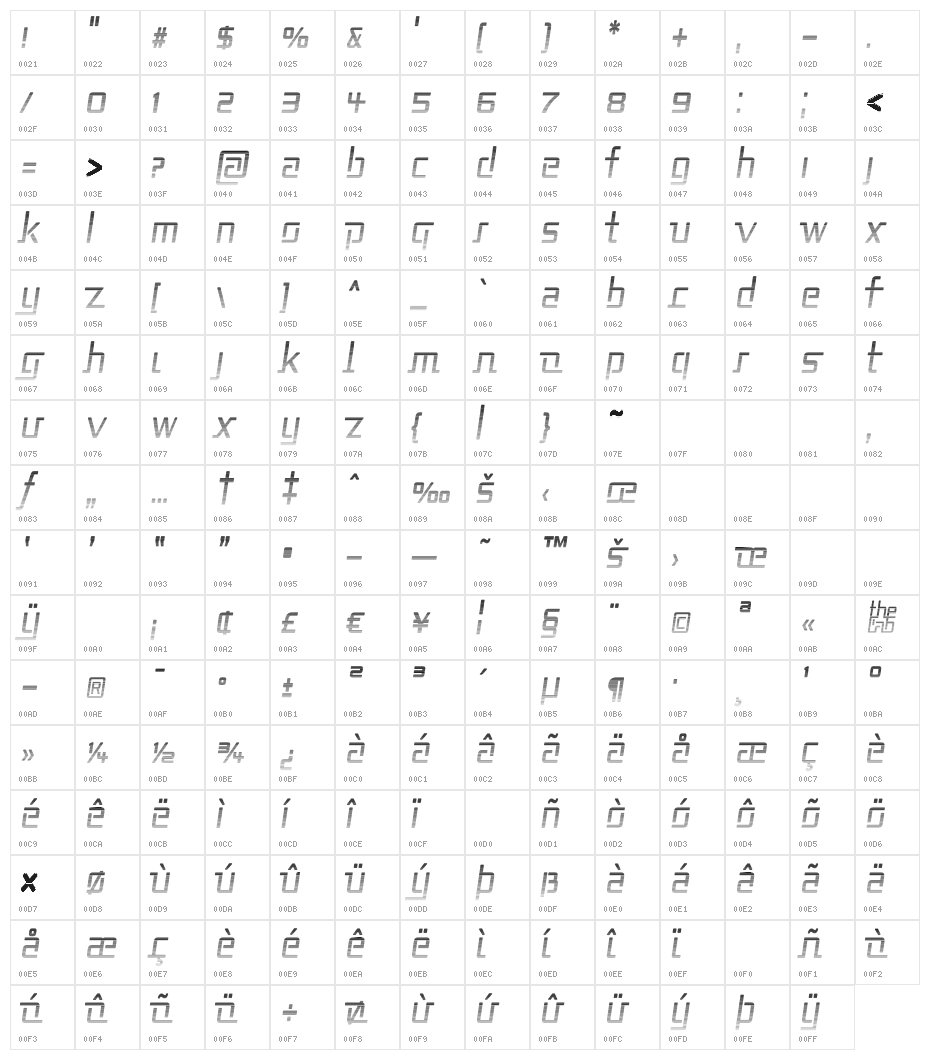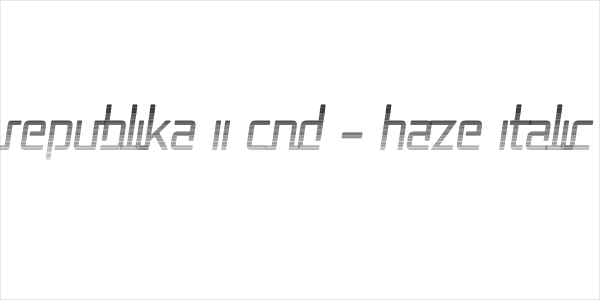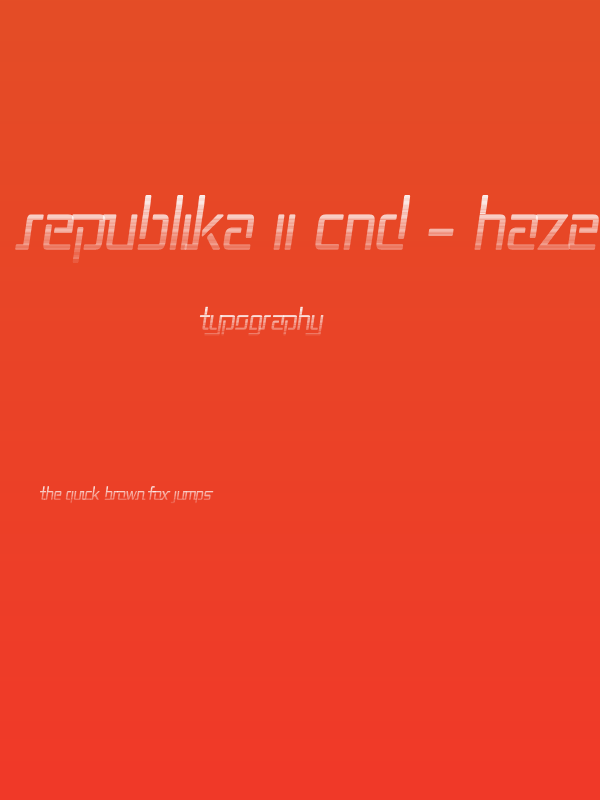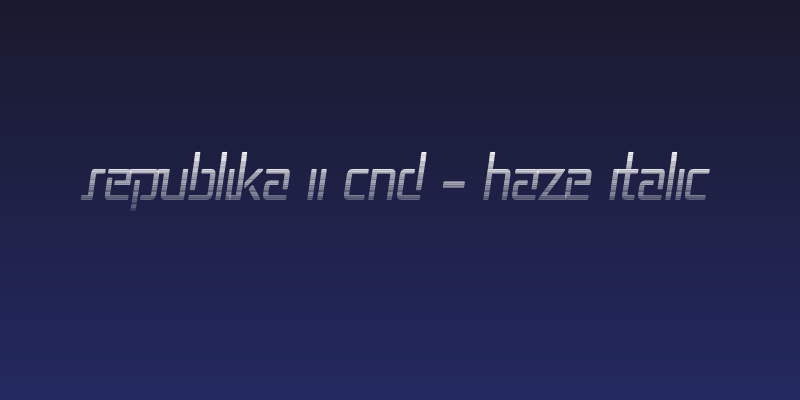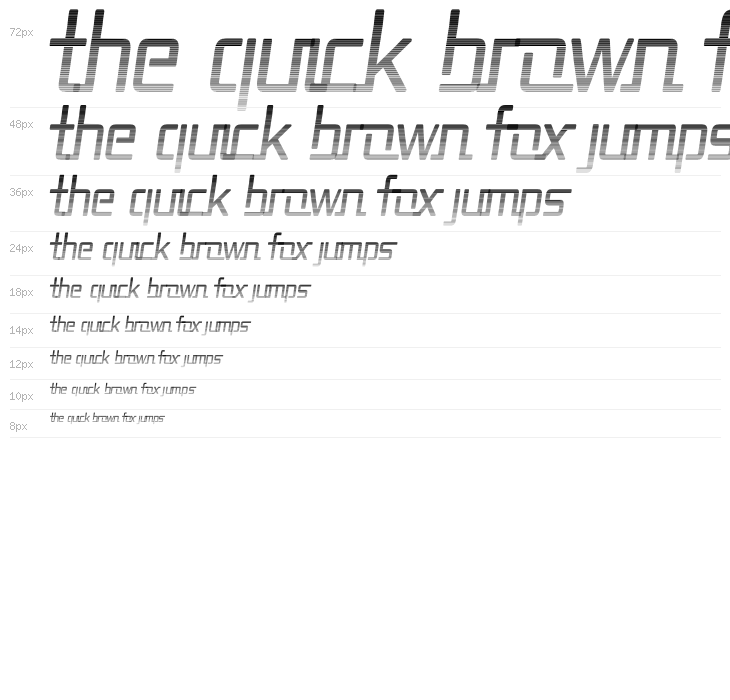
Republika II Cnd - Haze Italic Font
Republika II Cnd - Haze Italic Description
This font features a modern, futuristic design with a condensed and italicized style. The characters are sleek and streamlined, with a distinct slant that gives them a sense of motion and dynamism. The strokes are consistent in width, providing a uniform appearance across all characters. The font includes both uppercase and lowercase letters, numerals, and a variety of special characters, making it versatile for various applications. The spacing between characters is tight, enhancing the compact look of the text. The overall aesthetic is clean and minimalistic, suitable for contemporary design projects.
| Use Case | Headlines, Logos, Digital Interfaces |
| Proposed Projects | Ideal for technology branding, modern advertising, digital interfaces, and futuristic-themed projects. |